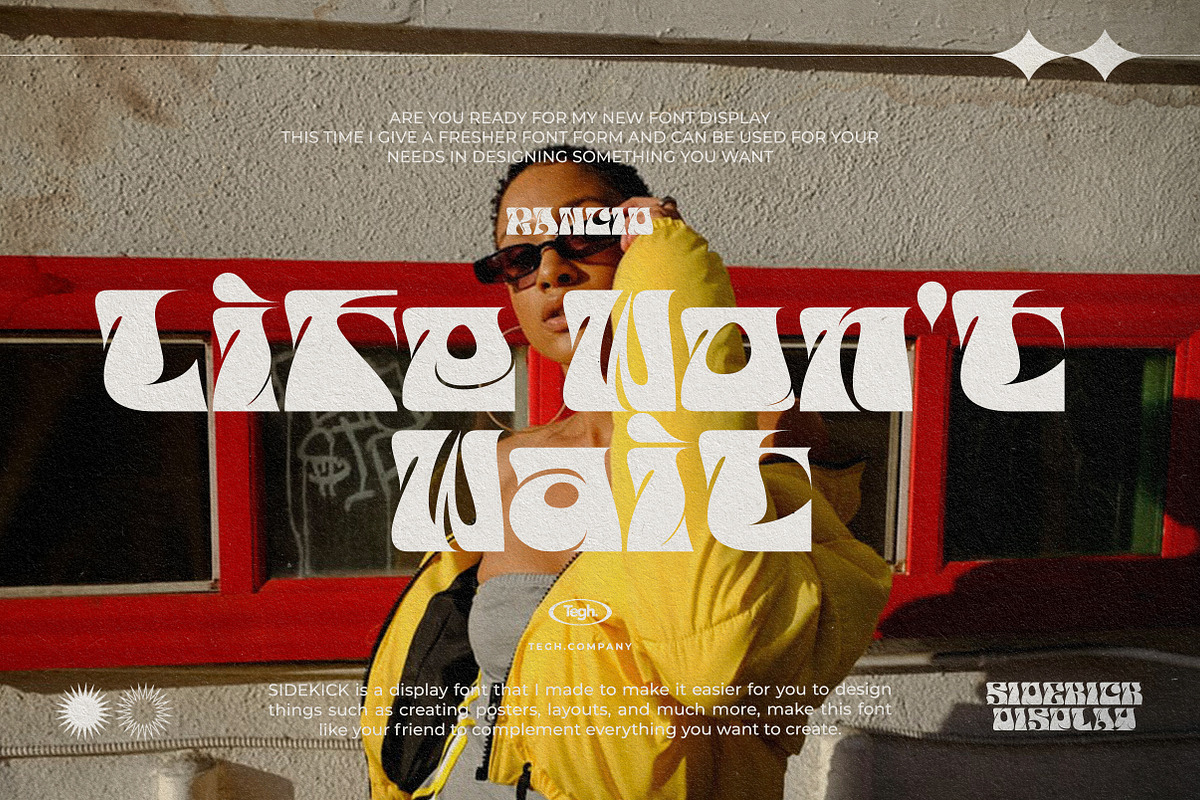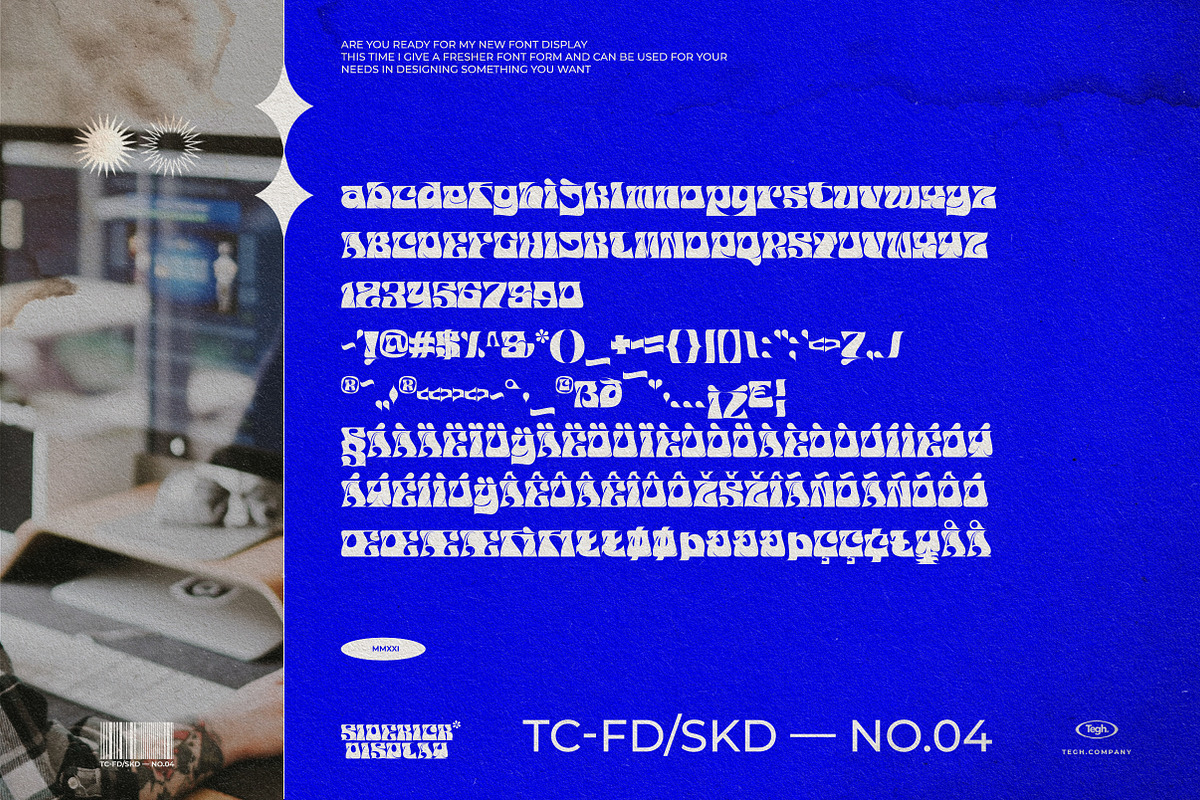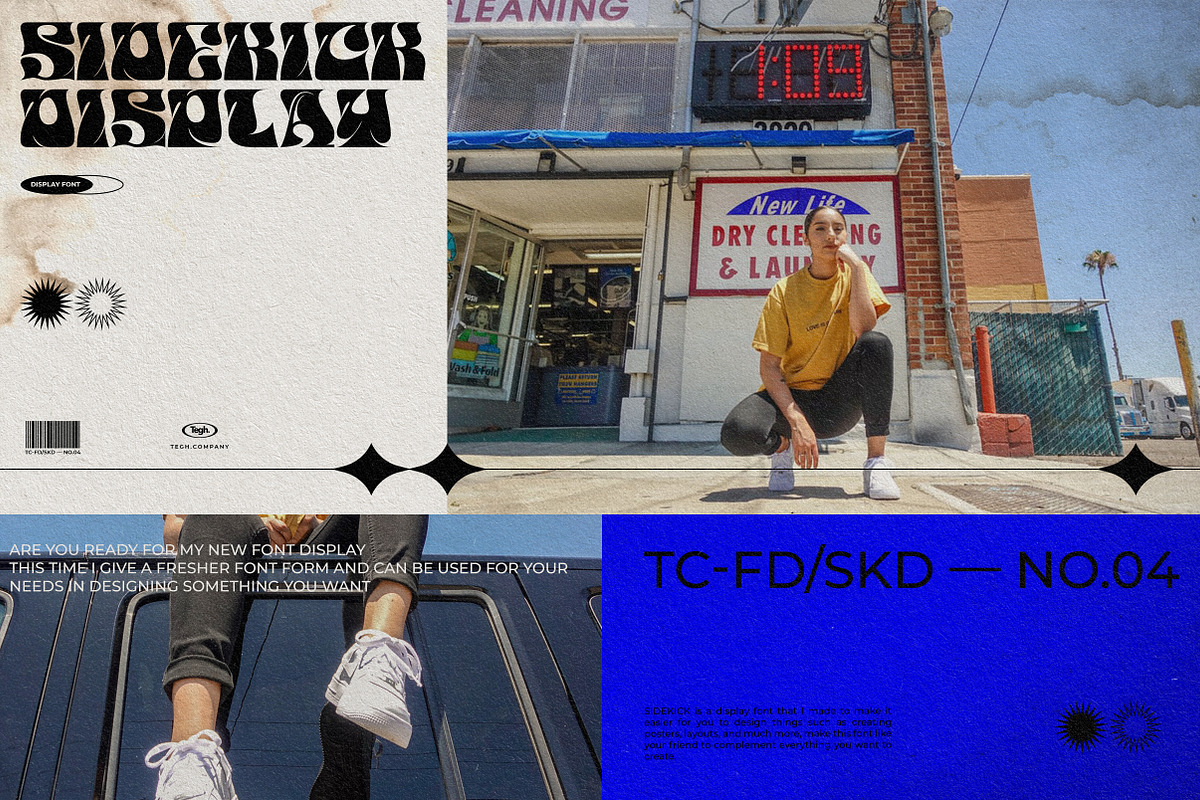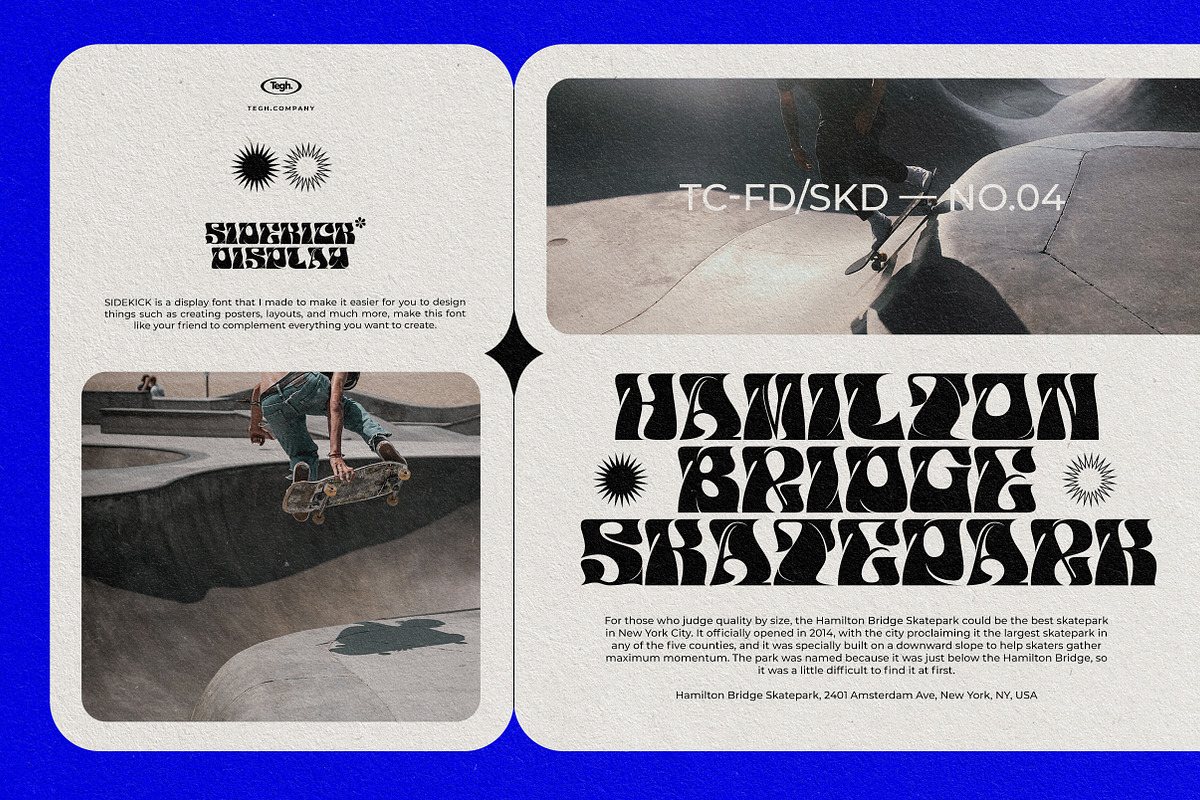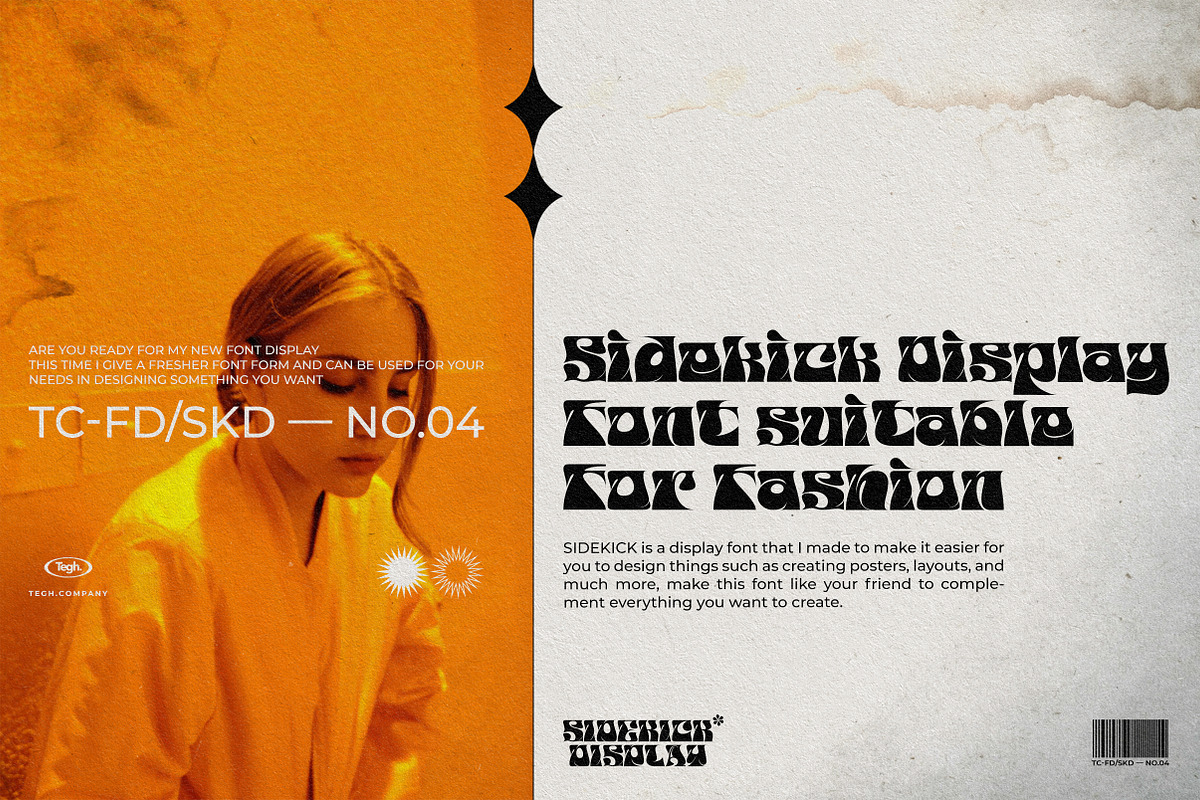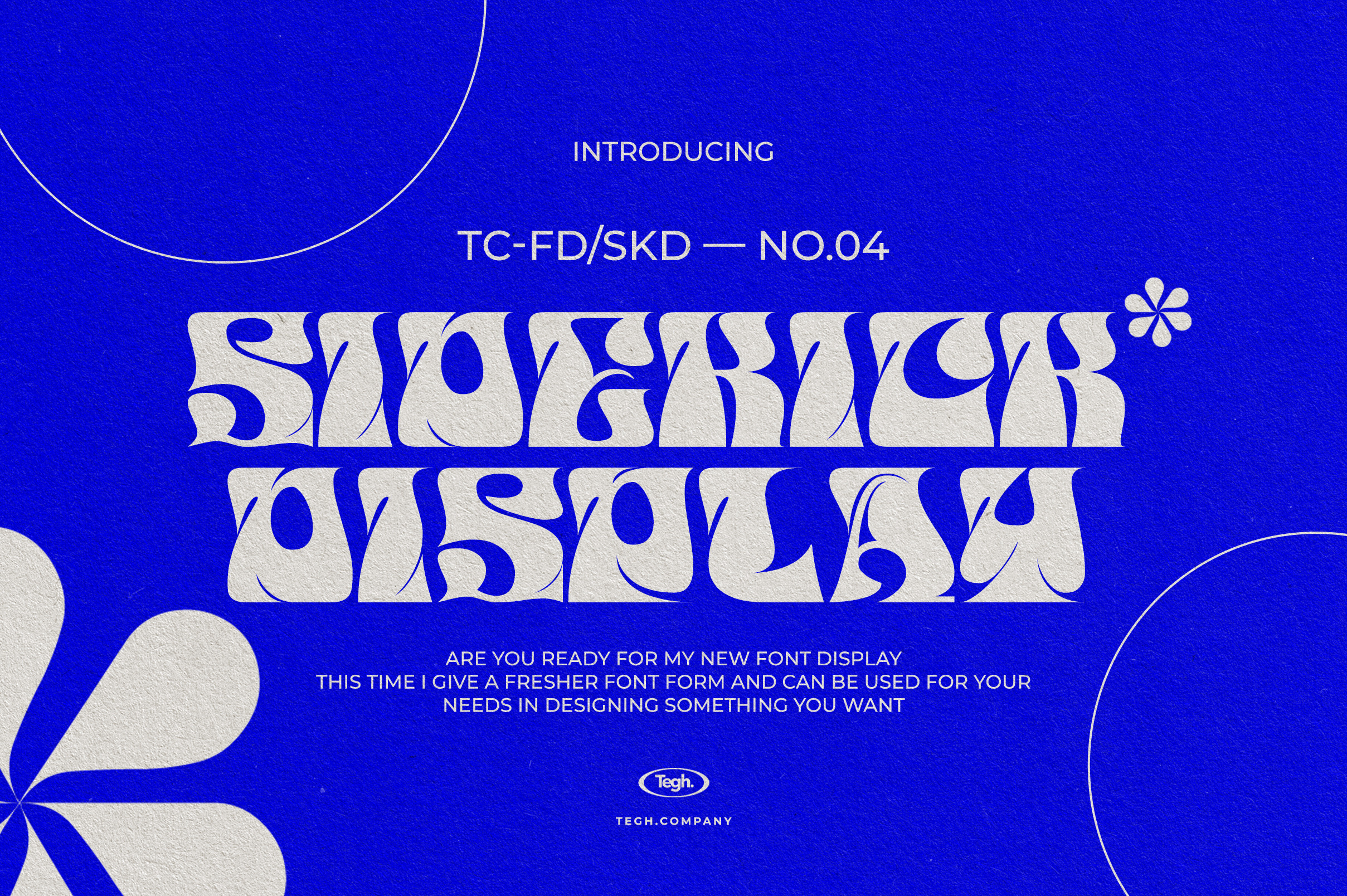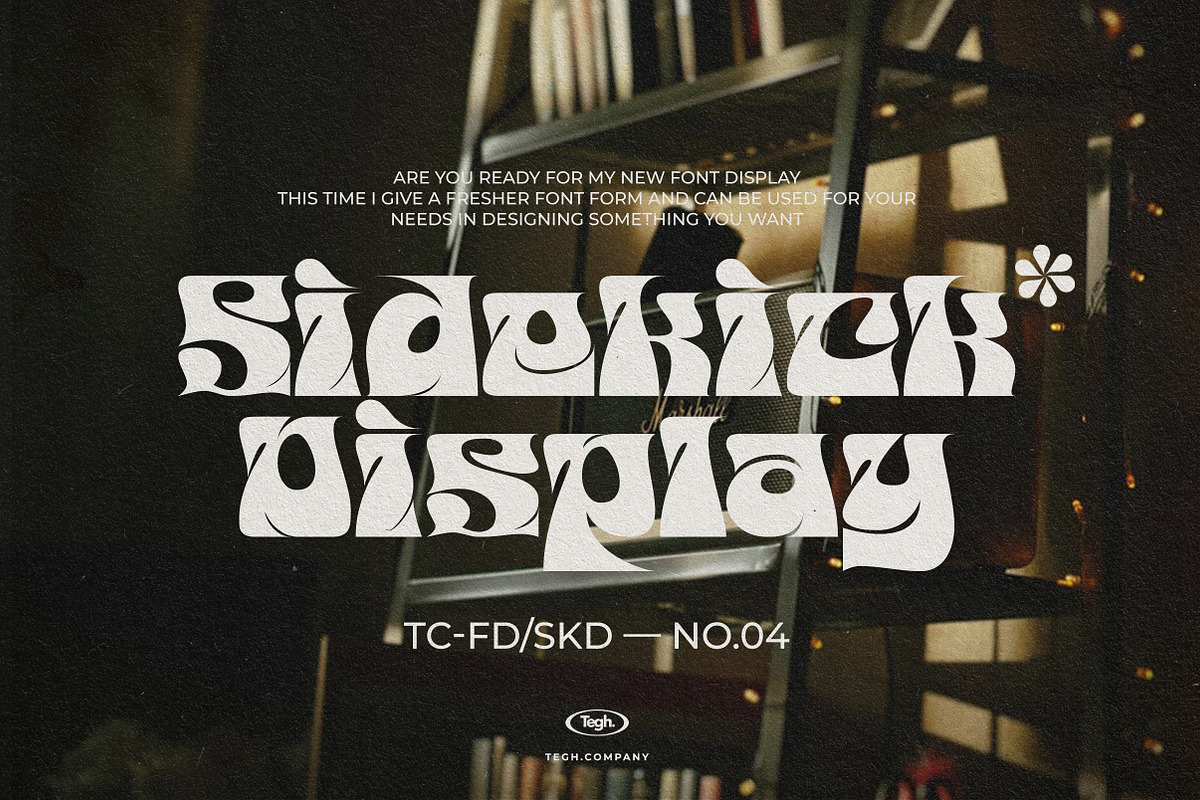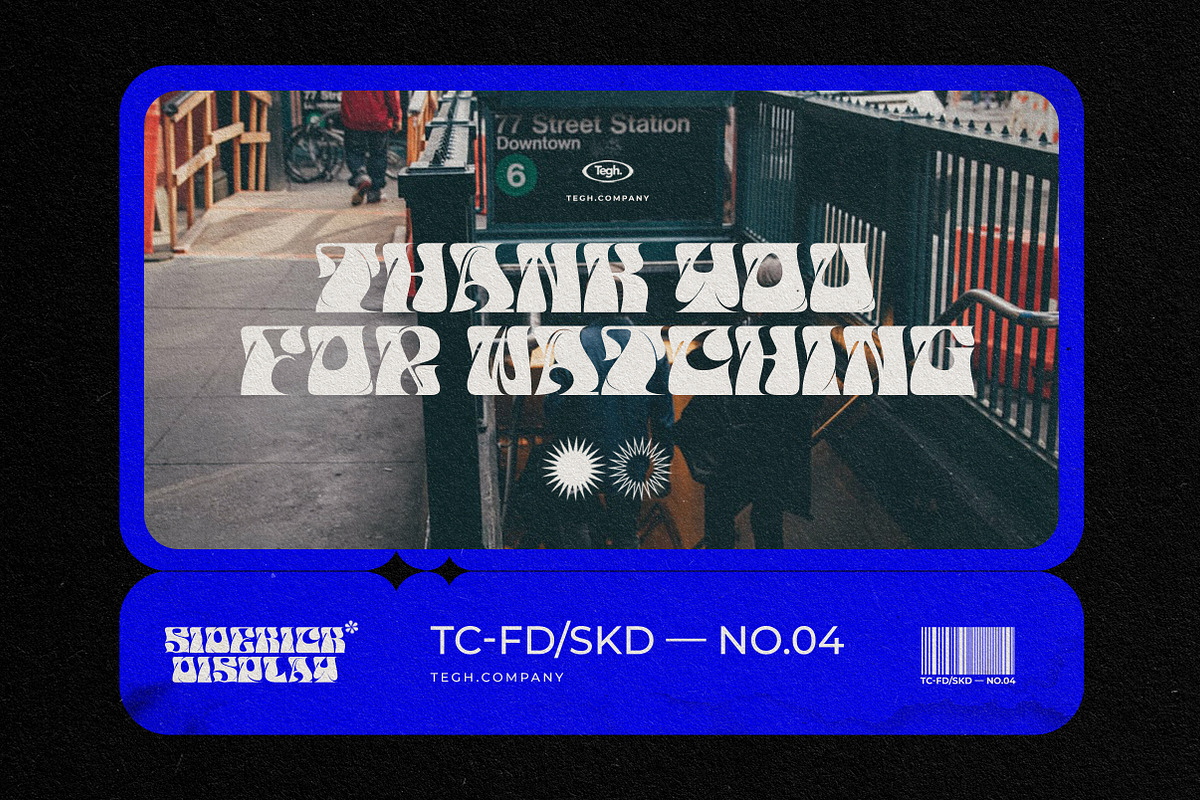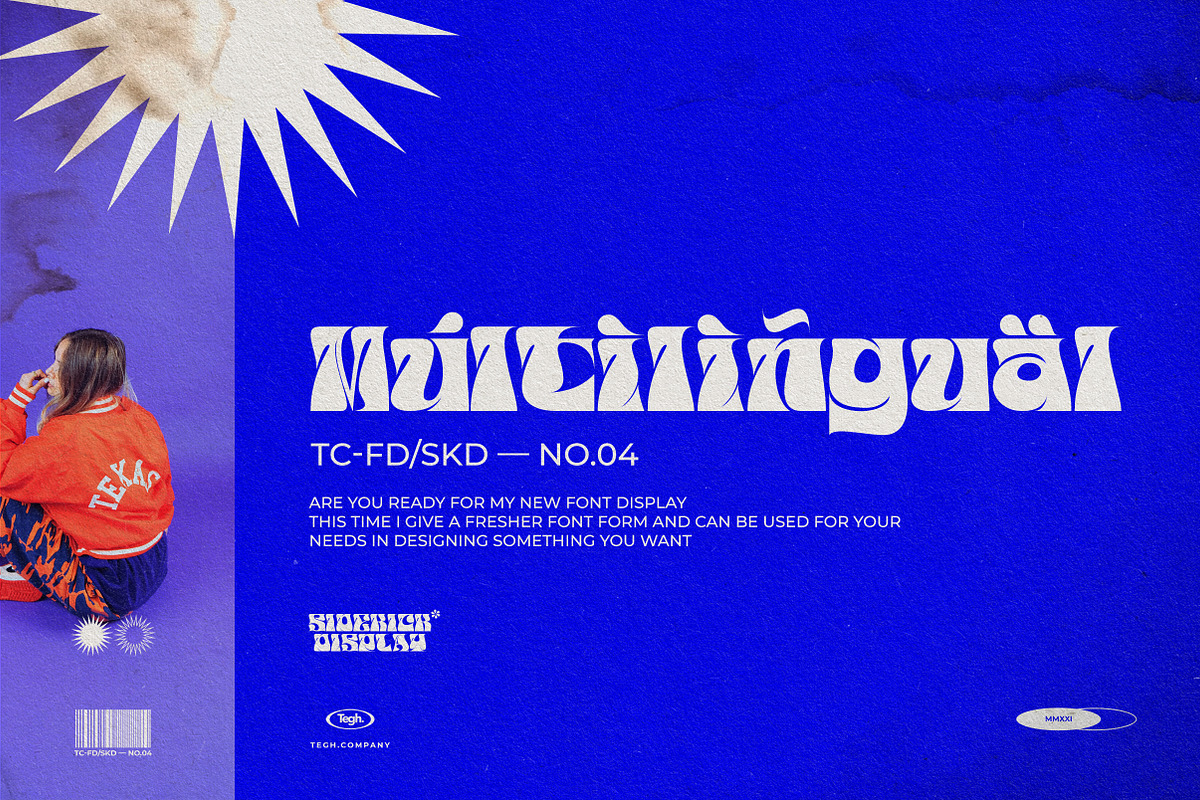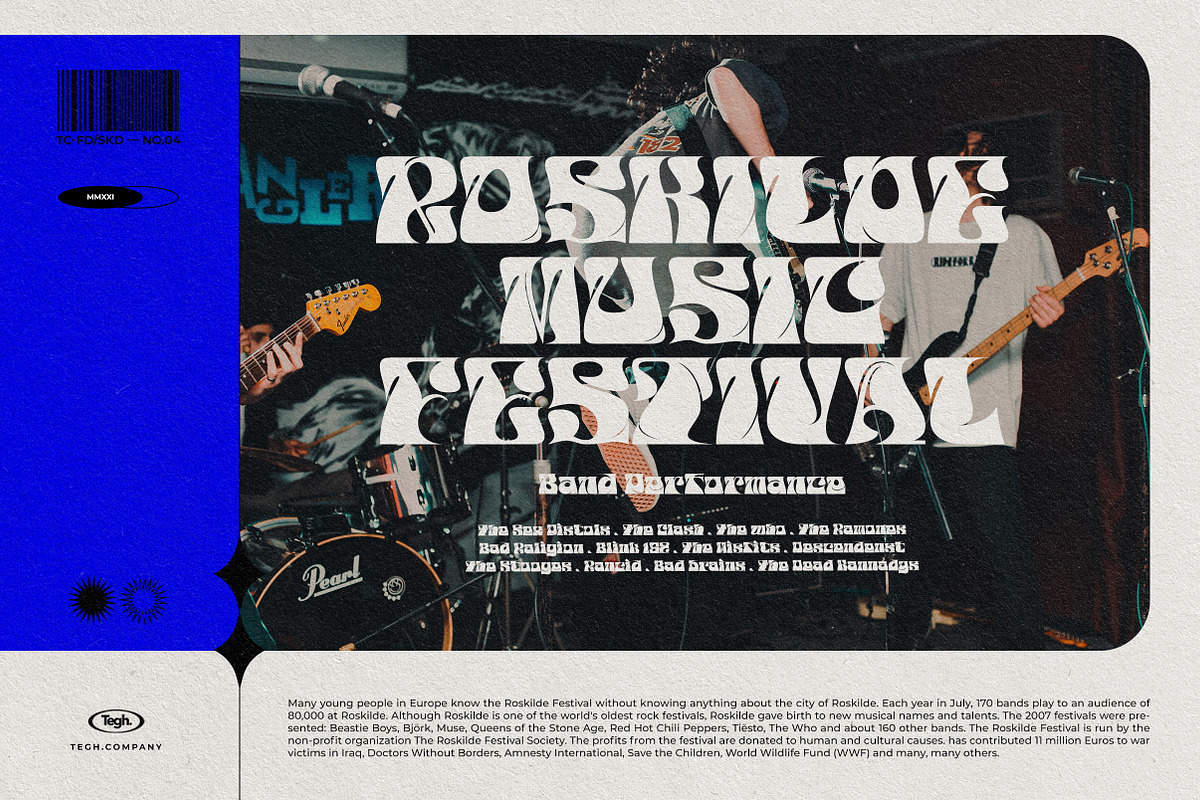
Sidekick Display font
hello!! hello, introduce the display font sidekick. this time I created a display font with a single unit that you can easily use for your design needs, hopefully this font can make you easier in designing something. I made this font with a slightly quirky style that can stand out more in making designs such as posters and others,this time I created a display font with a single unit that you can easily use for your design needs, I hope this font can make it easier for you to design something. I made this font with a slightly quirky style that can stand out more in making designs such as posters and others.